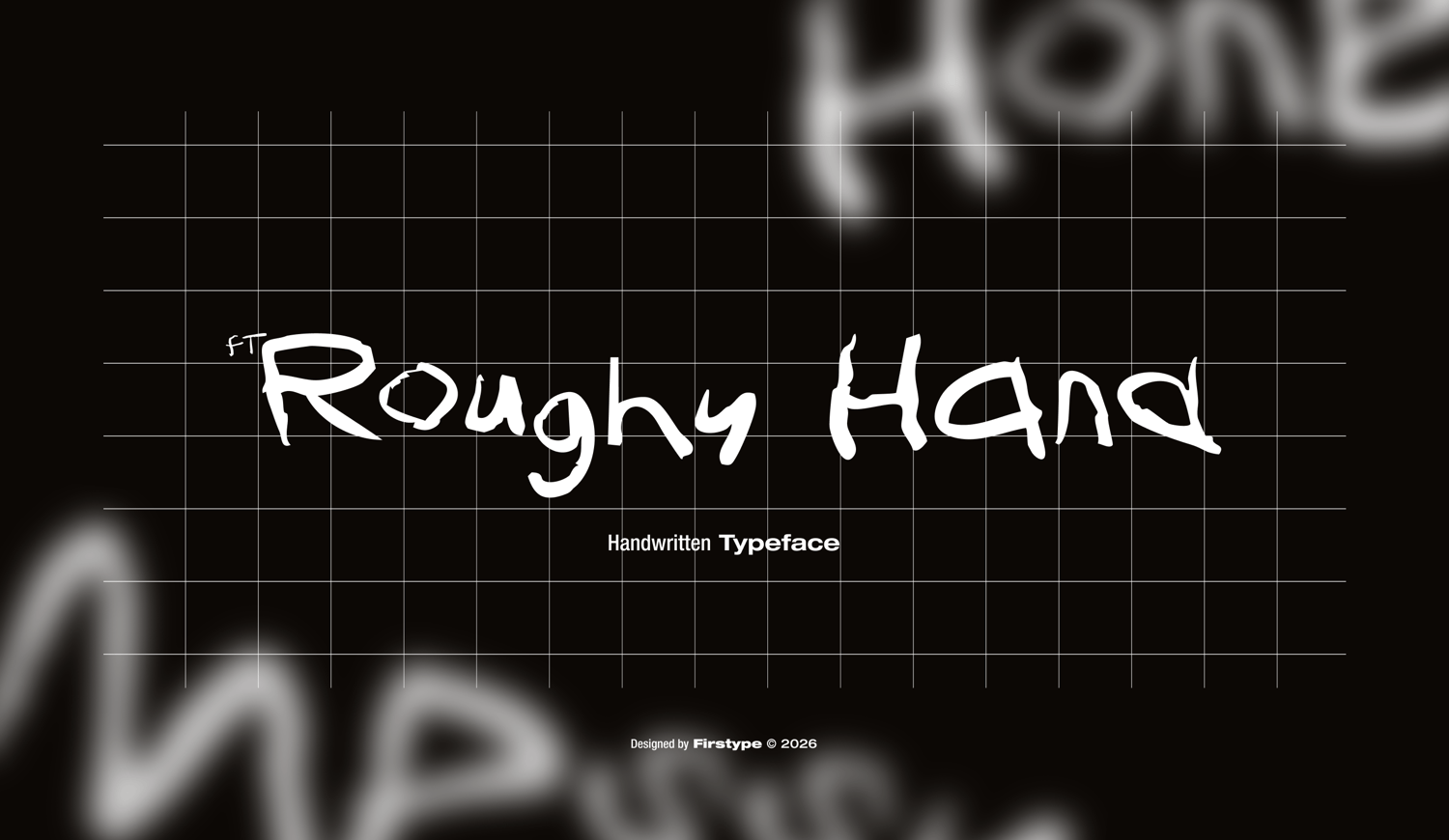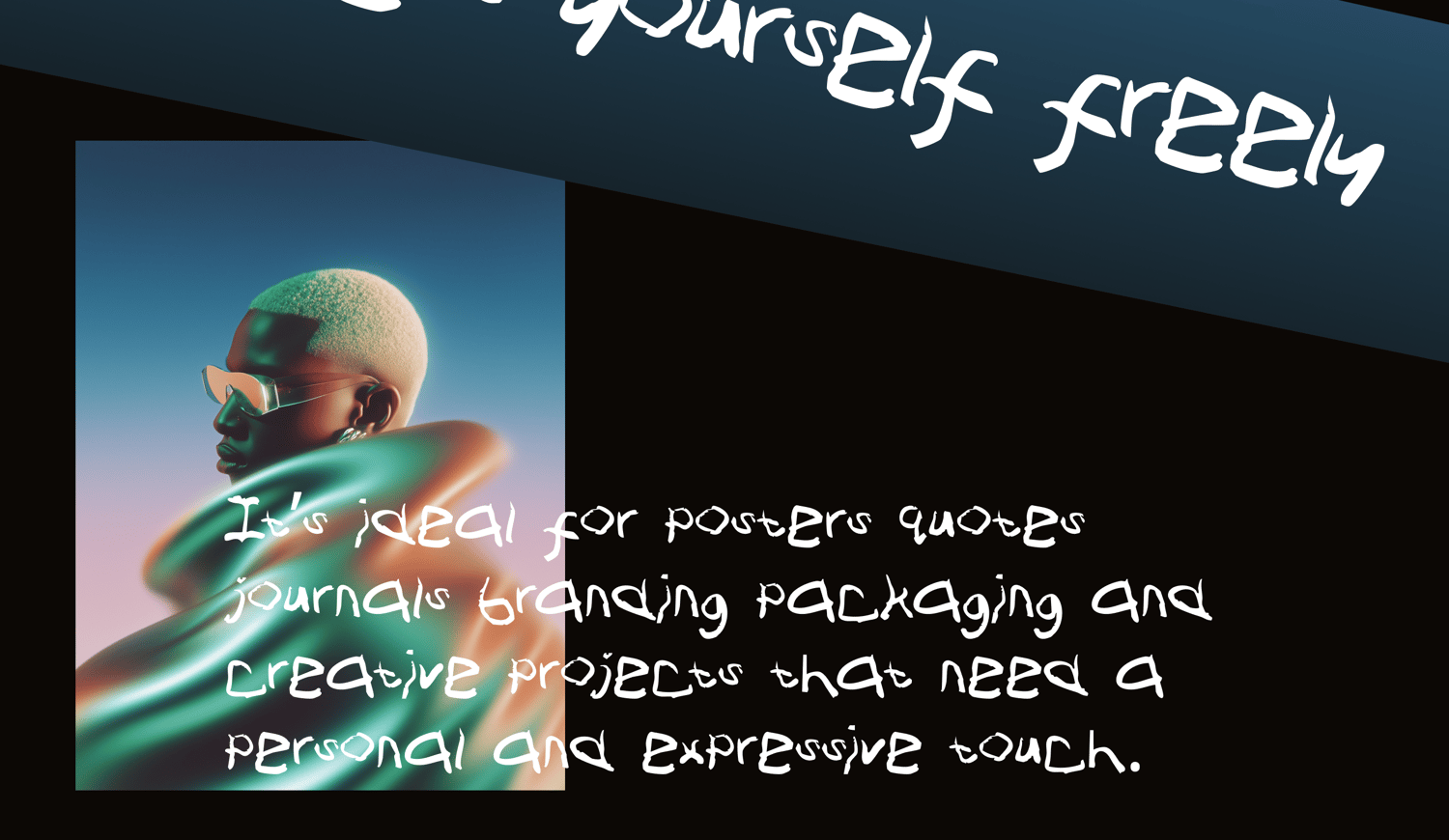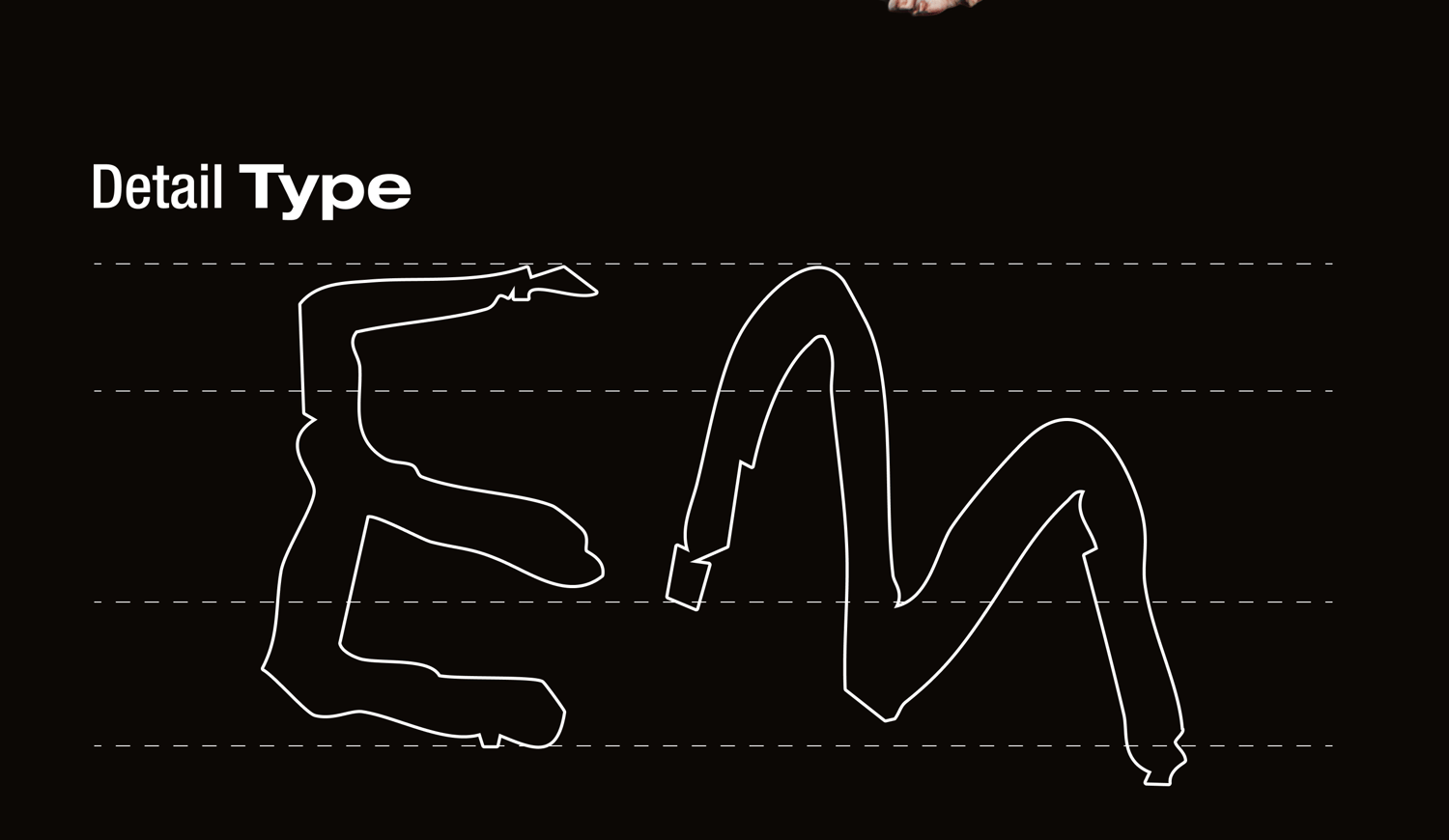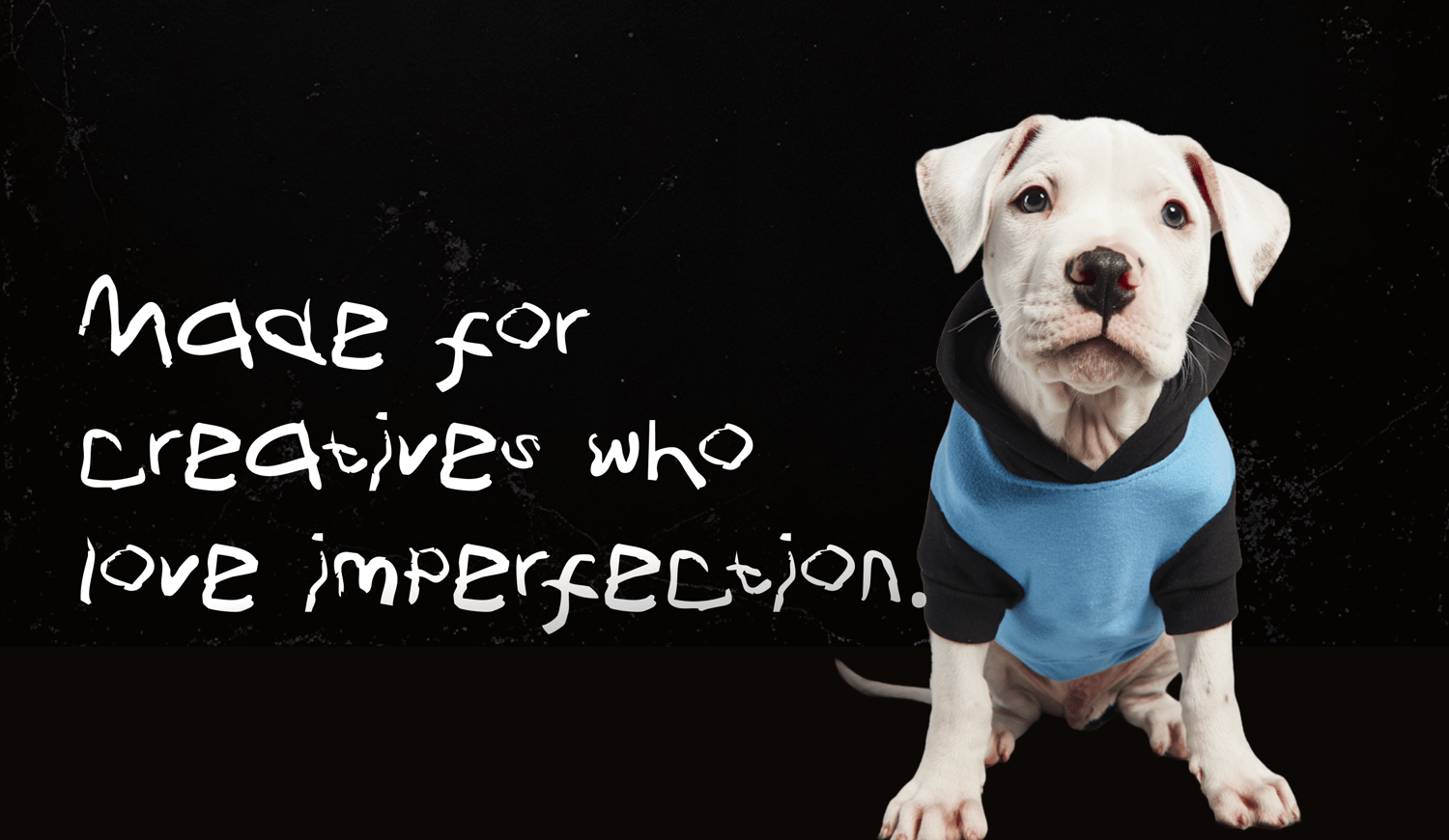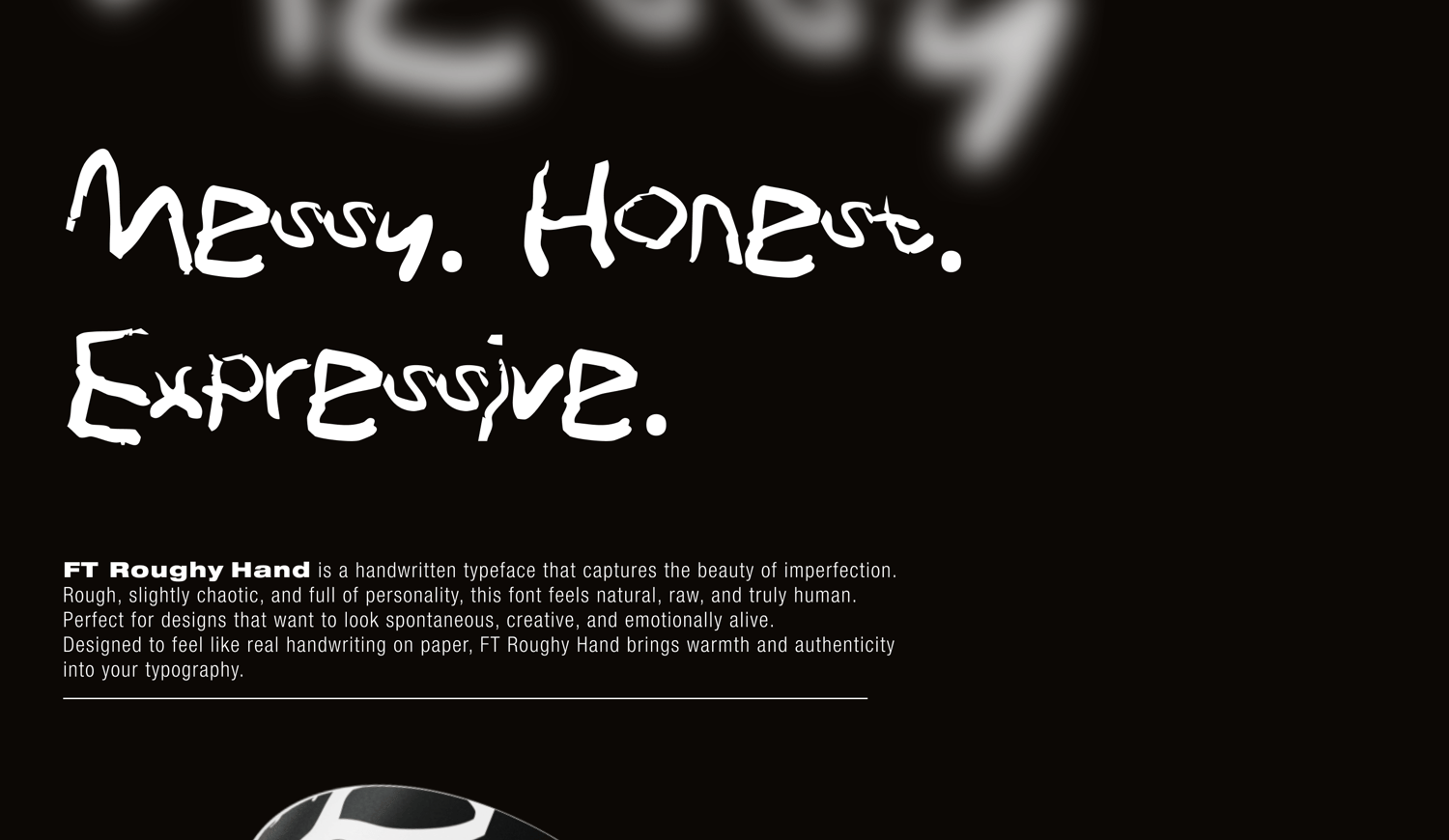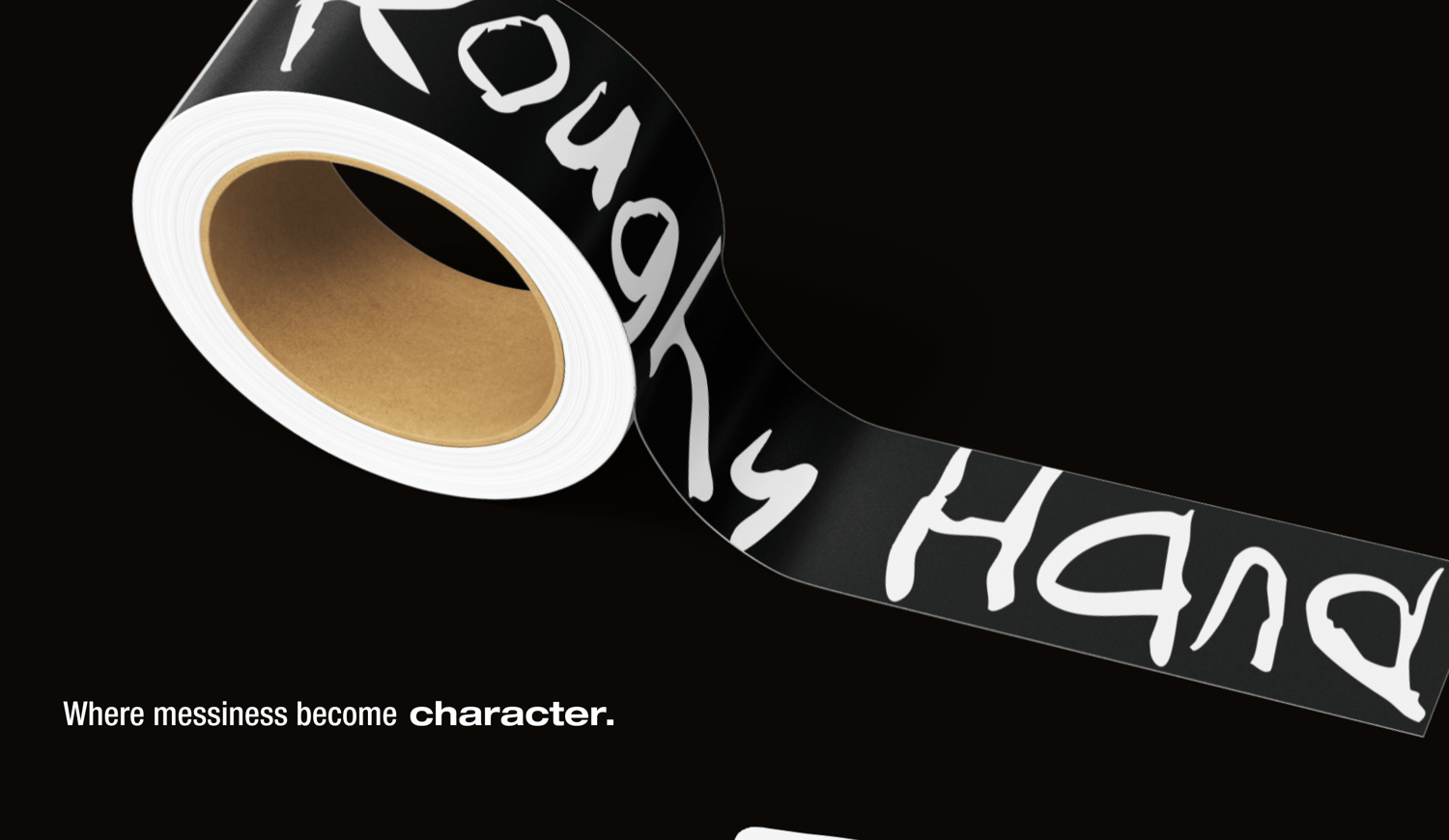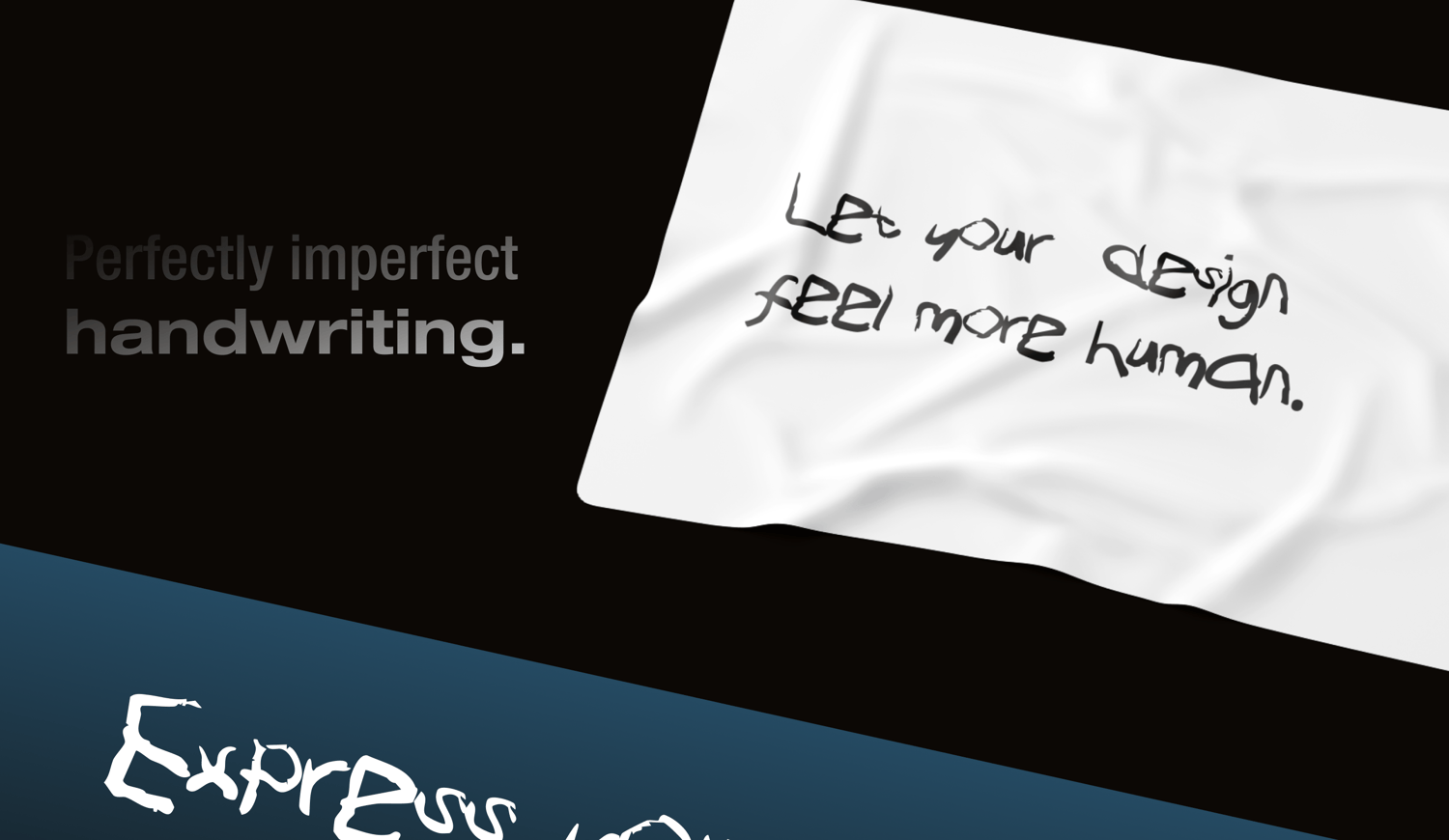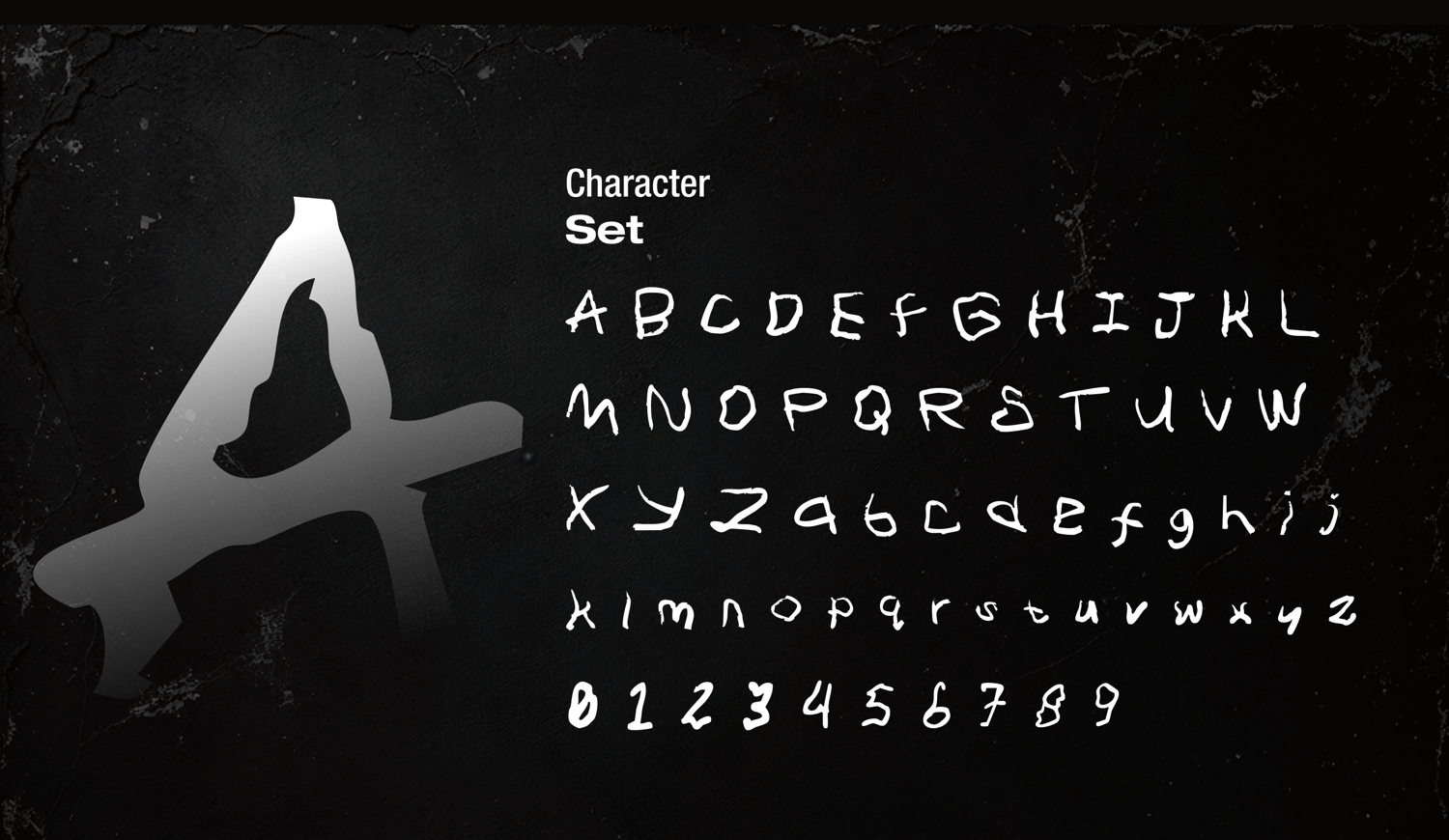
FT Roughy Hand — Handwritten Typeface
FT Roughy Hand is a handwritten typeface that embraces imperfection and raw expression. Inspired by natural handwriting with slightly messy strokes, this font captures a spontaneous, honest, and human feeling. Each letter is designed to look organic and unpolished, giving your designs a warm and personal touch.
This typeface is perfect for creative projects such as posters, social media graphics, packaging, quotes, branding concepts, apparel designs, and artistic layouts that need a casual and expressive personality. FT Roughy Hand brings a sense of authenticity and freedom, making every composition feel more alive and less mechanical.